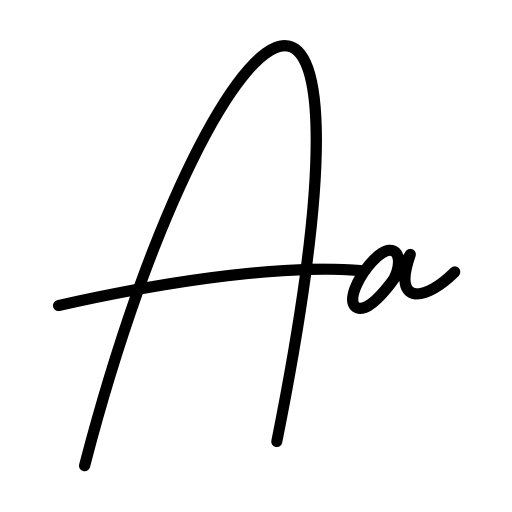
Bristany is a delicate, handwritten script font with a natural and flowing style. Its thin, airy strokes and elegant letterforms give it a personal, approachable feel, making it ideal for branding, invitations, and creative projects that want to convey warmth and sophistication. This font works especially well in designs that need a touch of charm and individuality without feeling overly formal.
Bristany Font
About Bristany Font
| Font family | Bristany Font |
| Designer | Mulia Yanto |
| Trademark | Multype Studio™ |